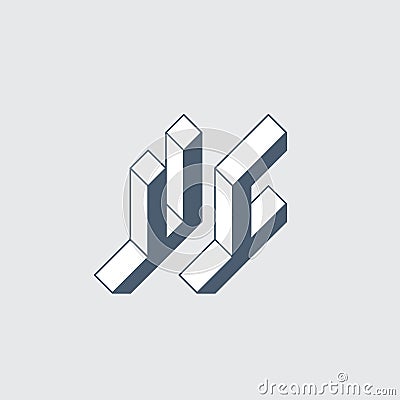
UC - Monogram Or Logotype. Isometric 3d Font For Design. Volume Alphabet. Three-dimension Letters U And C. 2-letter Code Vector Illustration
UC - monogram or logotype. Isometric 3d font for design. Volume alphabet. Three-dimension letters U and C. 2-letter code #186887852
UC - monogram or logotype. Isometric 3d font for design. Volume alphabet. Three-dimension letters U and C. 2-letter code.